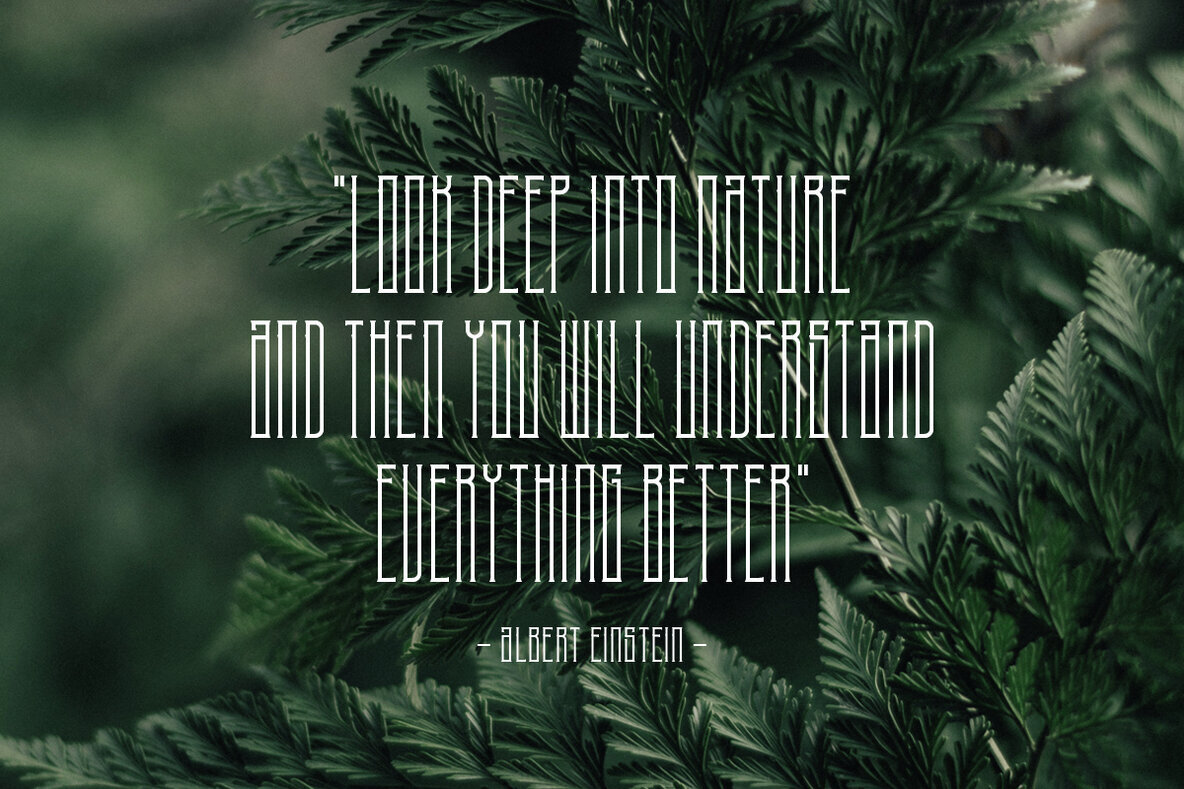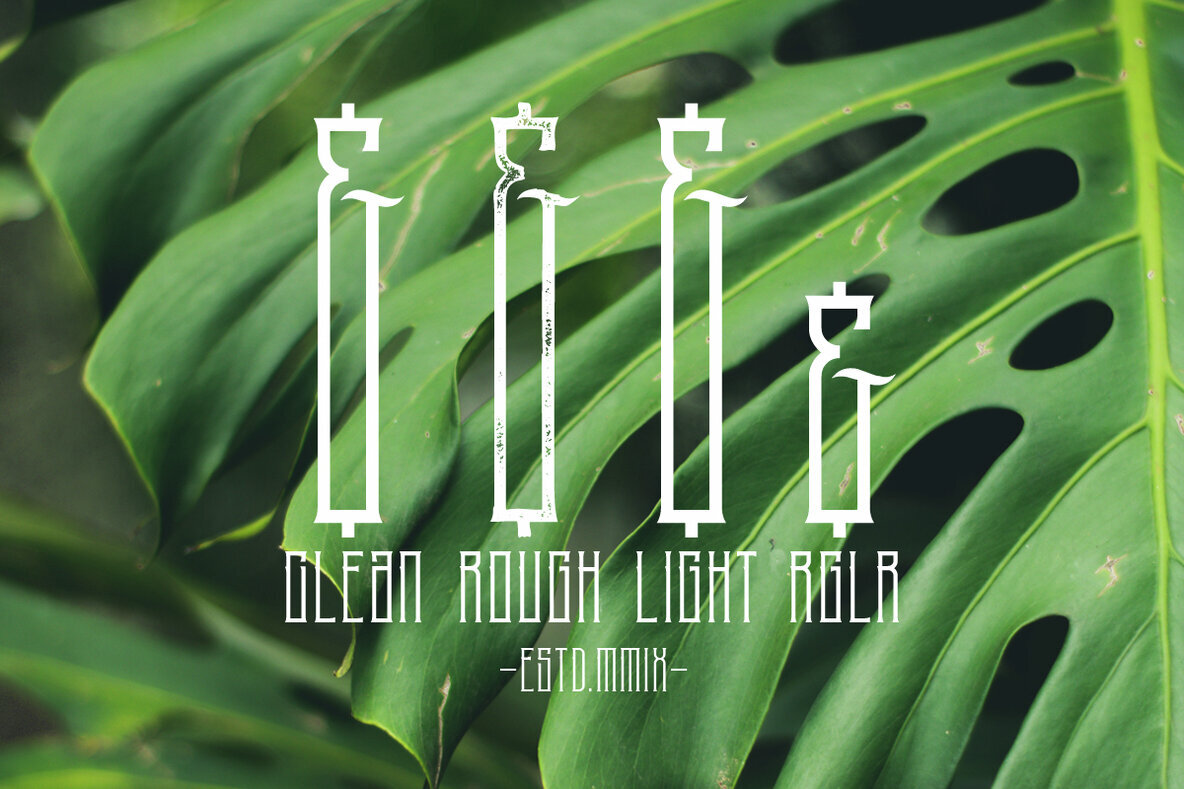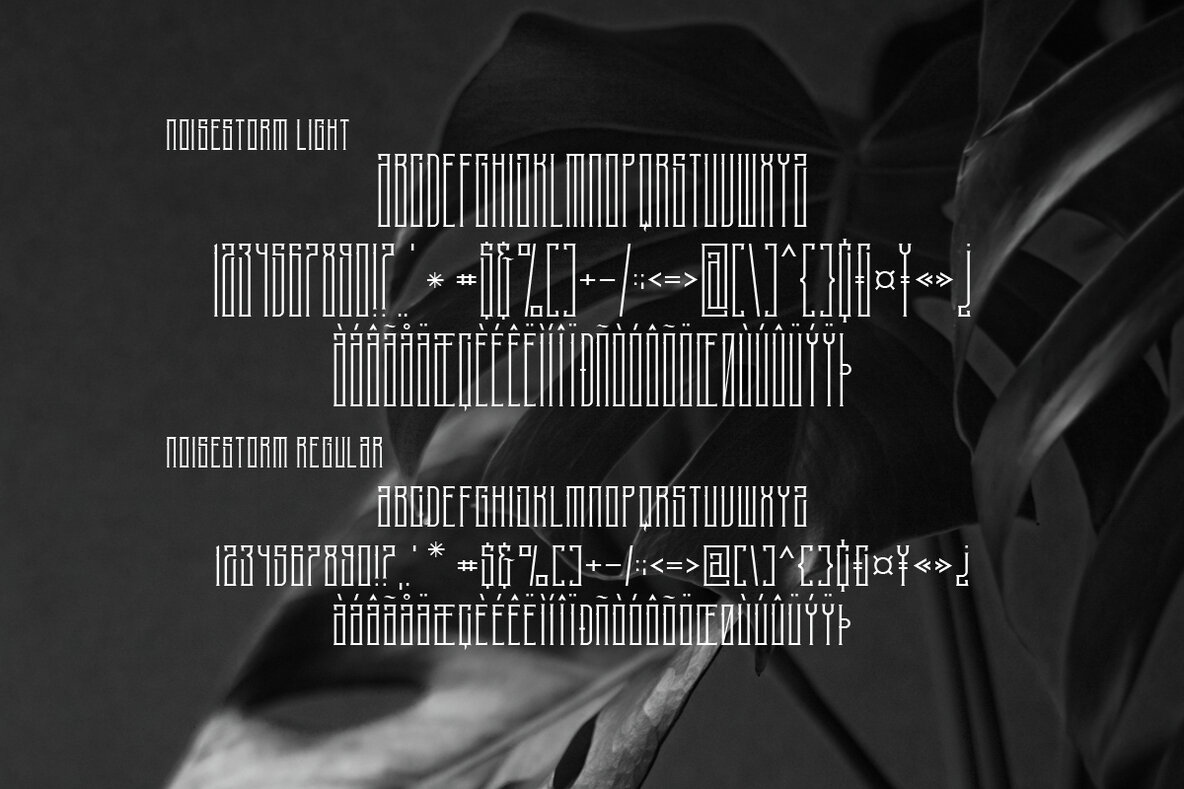
Noise Storm Font
NoiseStorm Classic Font Duo is inspired by classic retro and vintage aesthetics. Perfect for badges, branding, labels, apparel, headlines, signage, logos, quotes, and other creative applications.